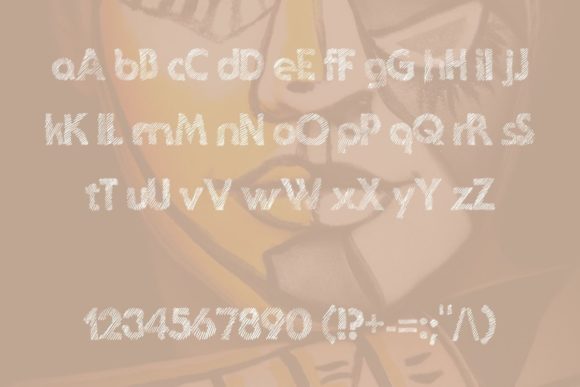
Introduction to Ghotic Sketch Font
As a designer, have you ever found yourself staring at a blank page, waiting for that perfect spark of creativity to strike? It’s a moment we’ve all been in, searching for that one element that brings our high-quality designs to life. For many, that spark comes in the form of a unique and eye-catching font – and that’s exactly what the Ghotic Sketch Font offers.
With its artistic flair and engaging aesthetic, the Ghotic Sketch Font is the perfect design resource for any creative project. Whether you’re working on business branding materials, social media posts, or even just a simple greeting card, this font is sure to make your design stand out. And the best part? It’s available for free download, complete with a transparent background that makes it easy to customize and integrate into any project.
As a valuable addition to any designer’s toolkit, the Ghotic Sketch Font is a must-have for anyone looking to elevate their designs and take their creative projects to the next level.
Key Features of Ghotic Sketch Font
- Unique, high-quality design perfect for creative projects and art pieces
- Perfect design resource for designers, artists, and writers seeking a creative edge
- Can be used for a wide range of applications, including digital art, print materials, and web design
- Unique, hand-drawn style with intricate details and textures, adding a personal touch to any project
Honest Review: Ghotic Sketch Font
As a designer, I’m always on the lookout for high-quality fonts that can elevate my creative projects. I recently stumbled upon the Ghotic Sketch Font, and I have to say, it’s been a game-changer.
What works well: ✨ The font has a unique, hand-drawn aesthetic that adds a touch of elegance to any design. The Ghotic Sketch Font is perfect for creating a spooky or mysterious vibe, making it ideal for Halloween-themed projects or designs that need a bit of a dark twist.
Limitations: ⚠️ While the Ghotic Sketch Font is incredibly versatile, it may not be suitable for projects that require a more modern or minimalist aesthetic.
Overall impression: I’m thoroughly impressed with the Ghotic Sketch Font. It’s a fantastic addition to any designer’s toolkit, and I highly recommend it to anyone looking to add a touch of creativity to their next project.